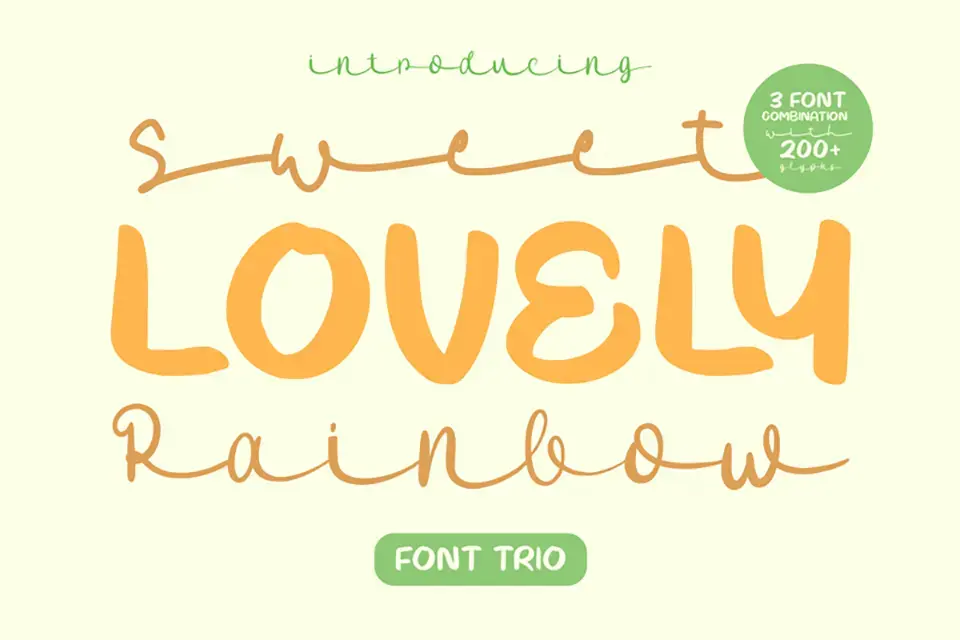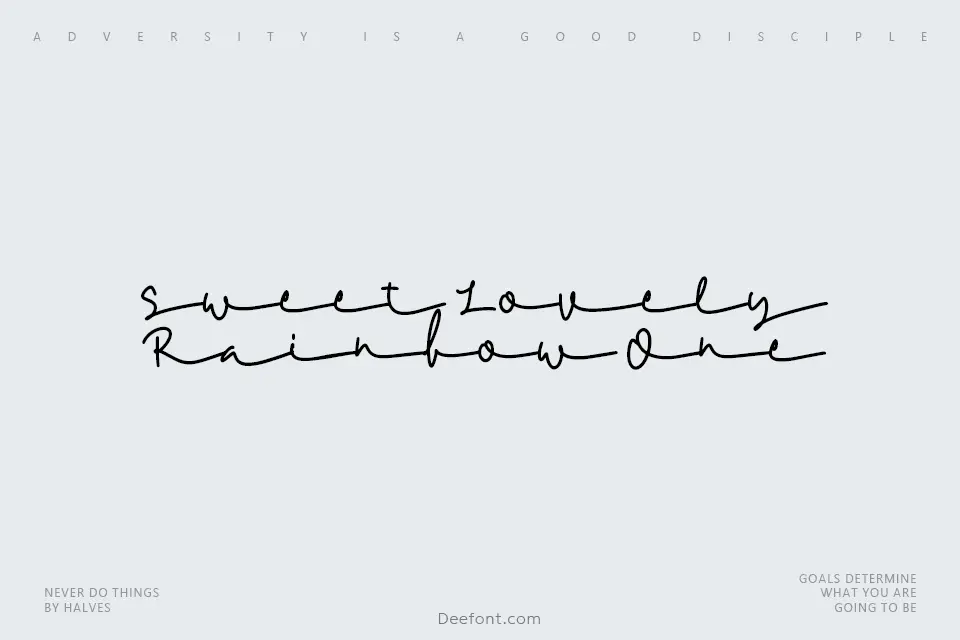
Sweet Lovely Rainbow One Font
Sweet Lovely Rainbow One is a delightfully charming handwritten script font from Lettersweet Studio that captures warmth and creativity. Its soft, flowing curves and semi-light weight deliver an organic, naturally friendly aesthetic ideal for children's books, greeting cards, nursery decor, posters, party invitations, and social media graphics. Perfect for brands seeking playful personality, this font combines readability with visual appeal, making it excellent for headlines, branding materials, and display projects requiring a whimsical yet professional touch.